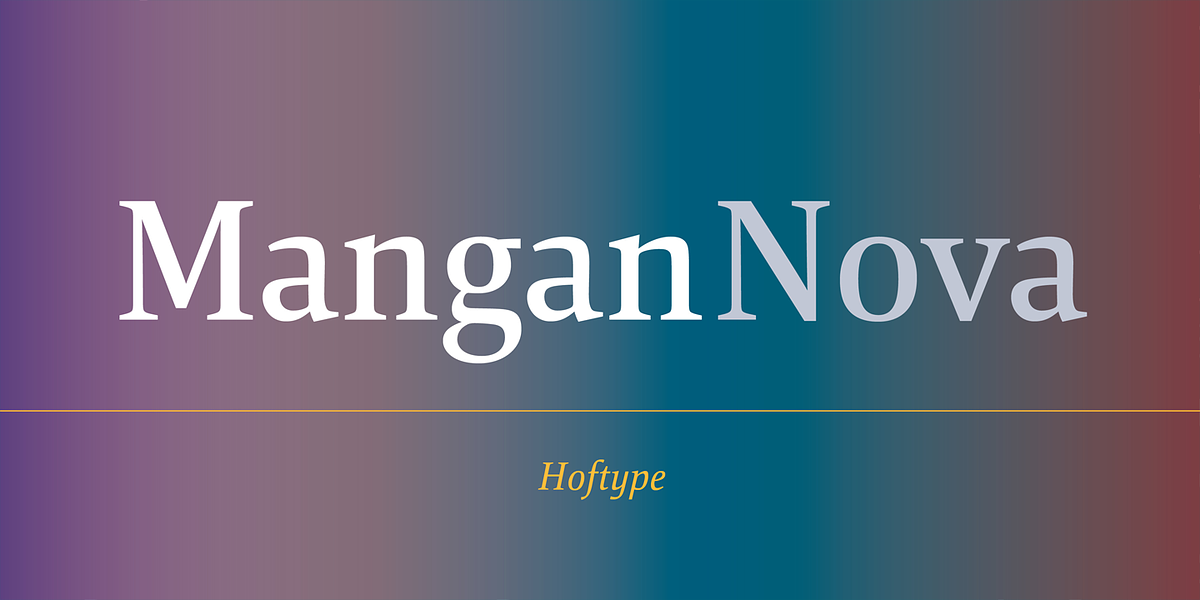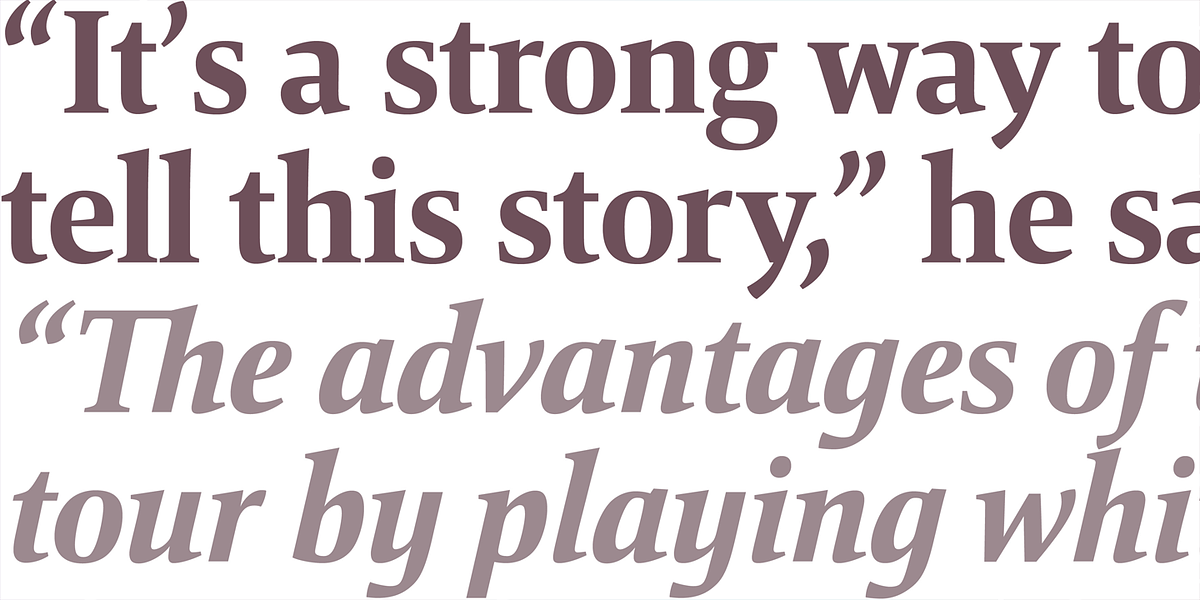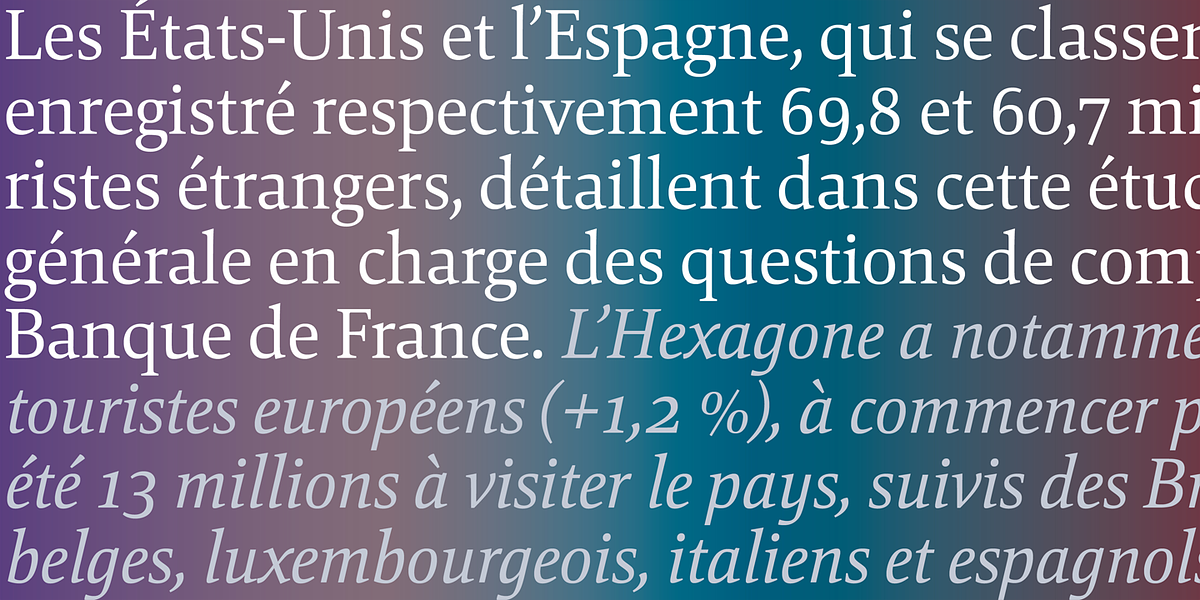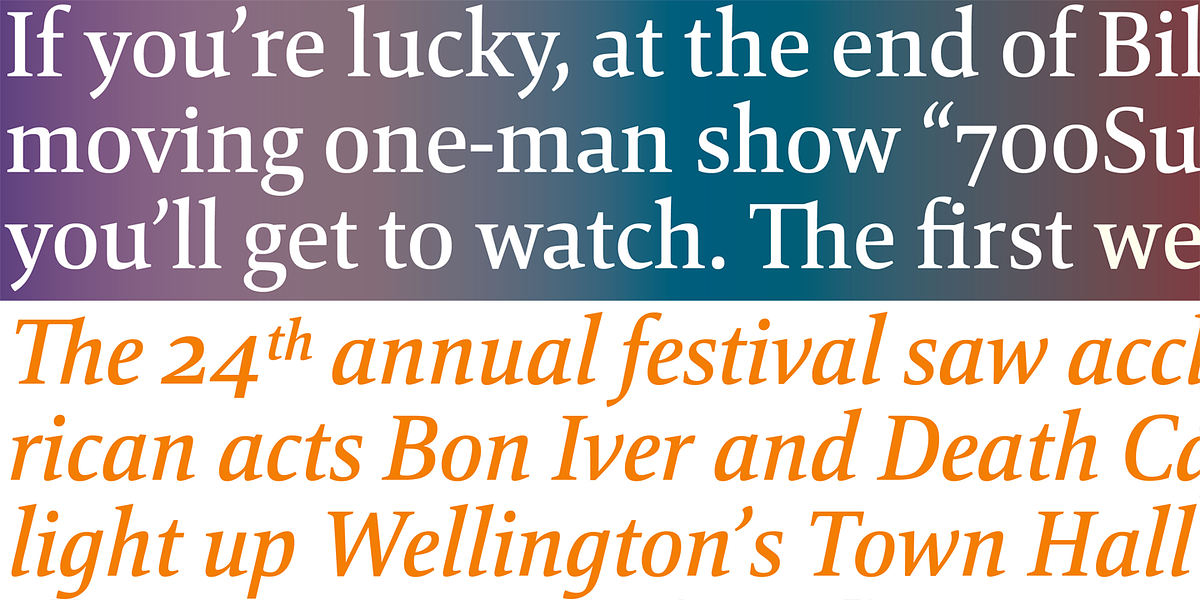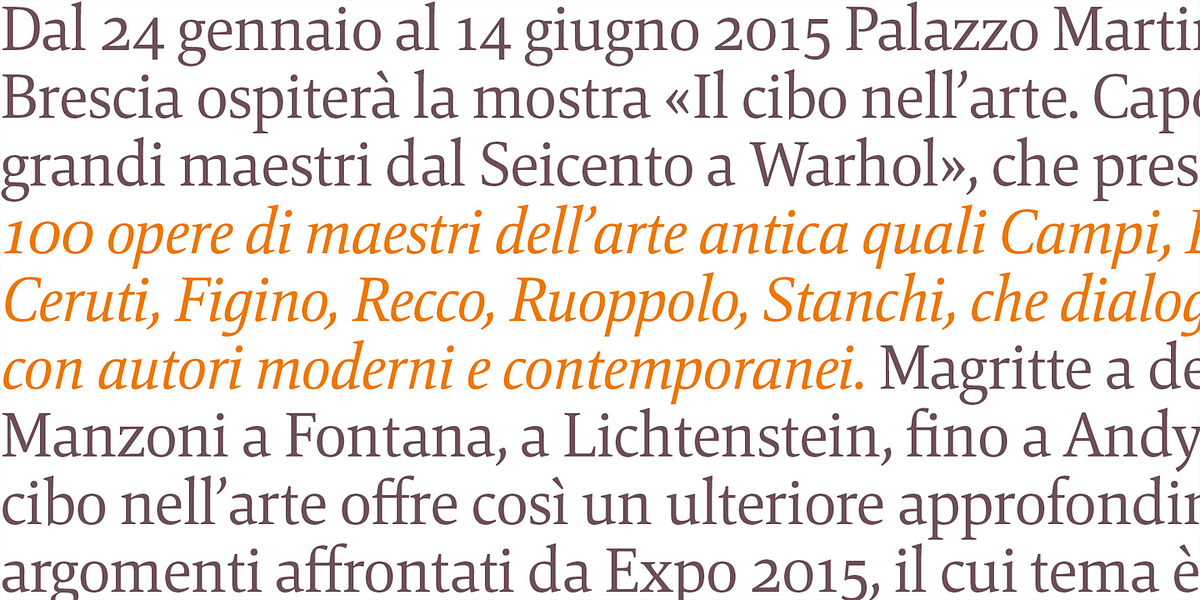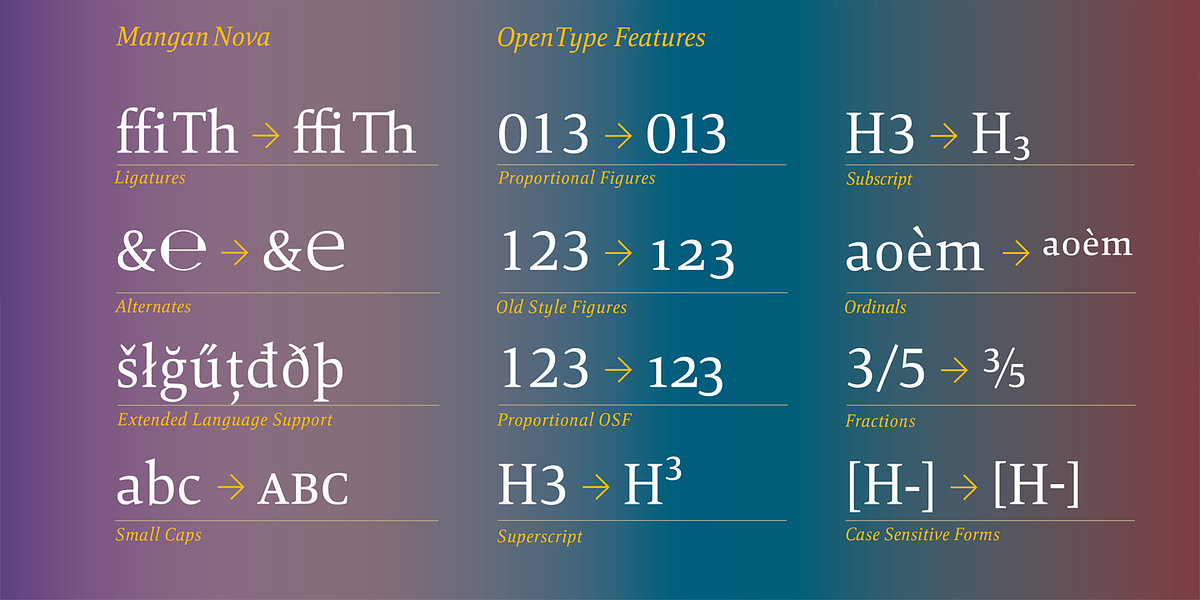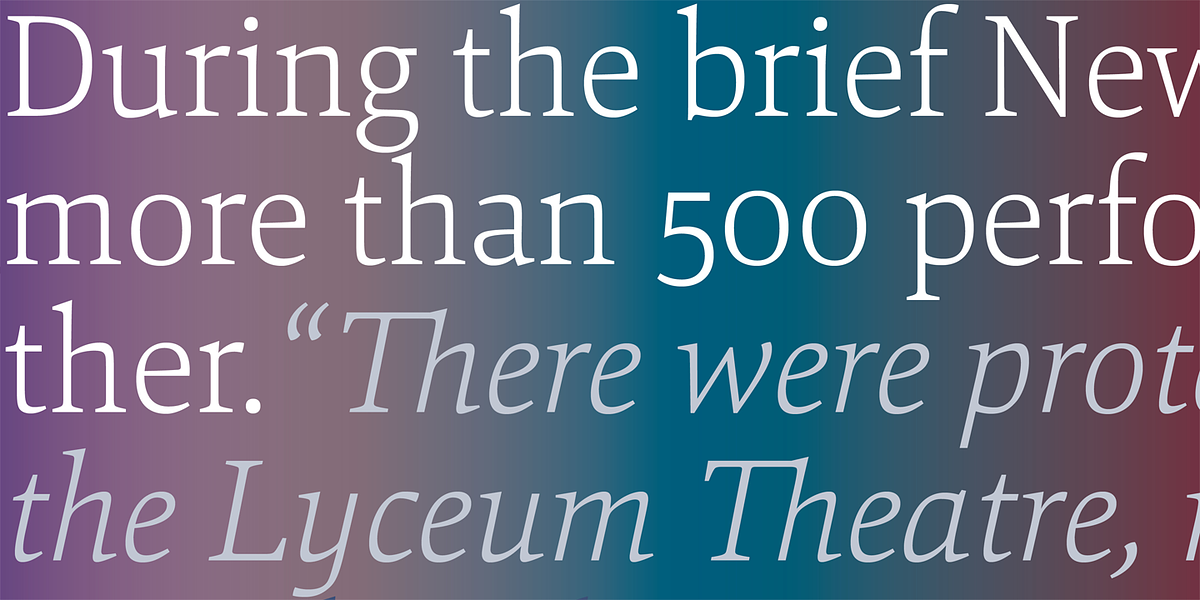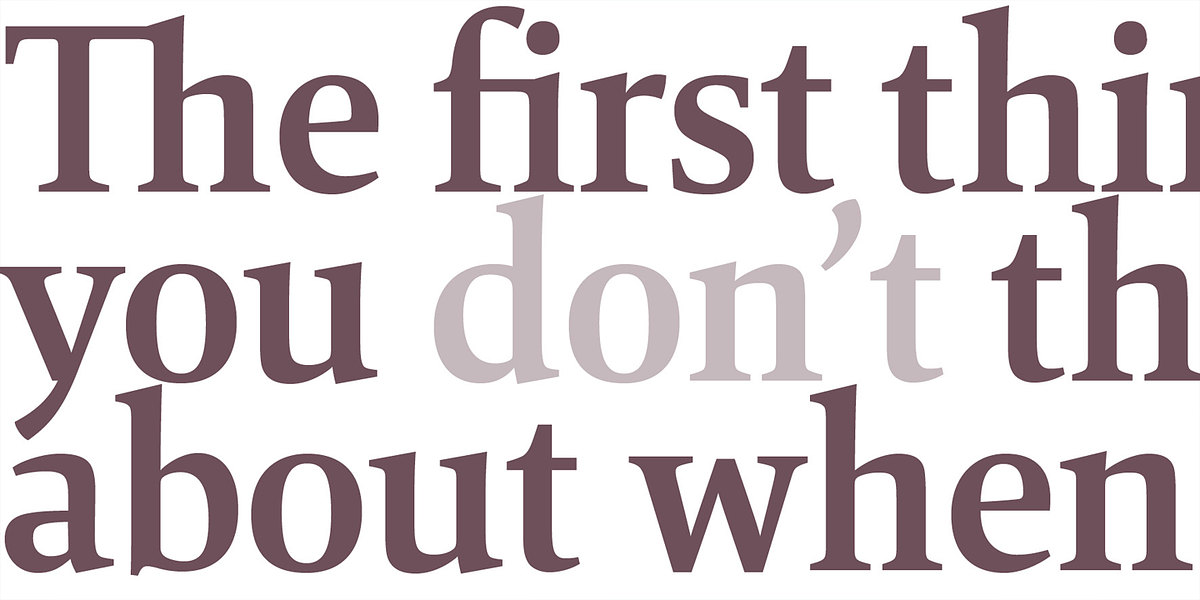
Mangan Nova
Mangan Nova is a semi-condensed transitional serif font designed for both strong headlines and pleasant reading in text applications. It comes with 14 styles and offers extensive OpenType features such as small caps, ordinals, ligatures, various figure options, currency symbols, and fraction/scientific numerals.